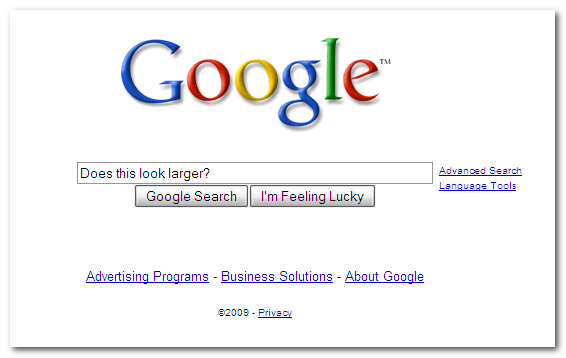
Large Google font, I hate it, do you?
I hate so it much, looks ugly but then Google's products never have been design efficient. Google has been "playing" with their pages lately. Changing colors first, then font sizes, showing slightly different search results than my local Google domain.
Ah I see it. It's only available on Google.com at the minute, not on the regional sites (i.e. .co.uk, etc). I don't really have a problem with the font, but the fact that the search buttons float at the bottom of the suggestion list sucks.
its on google.co.uk for me.
I think it looks ugly and out of place, the only sensible reason I can see for doing this is for people with poor eyesight, but they would be using a higher DPI or high-contrast theme. Which to my mind just makes this change silly.
It seems they have made the width of the textbox smaller and I love it even more now. I used to think Google Search was ugly... I still don't think it looks any where near as nice as Bing but this is an improvement and I actually think it looks okay now, especially as the textbox is now consistent with Google Chrome's location bar (size, font).